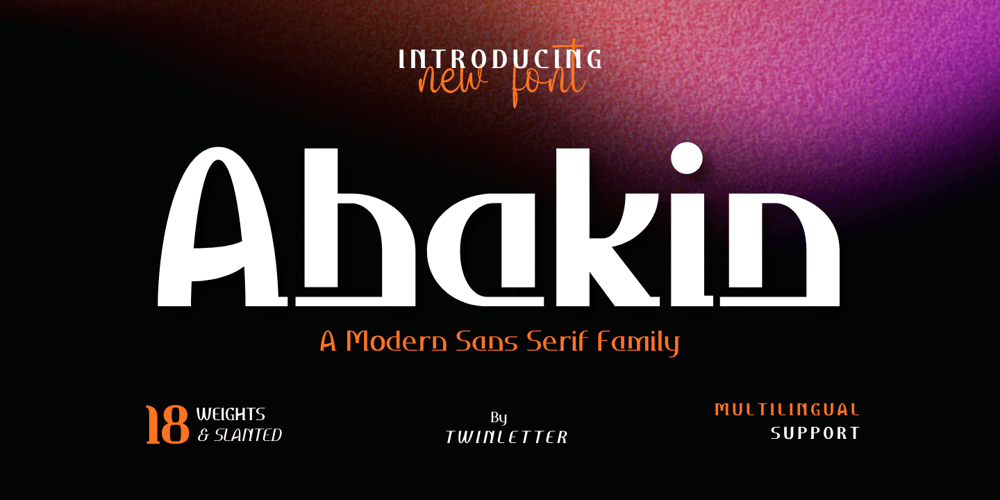
Ahakin Font Family was designed by Rozikan and published by Twinletter. Ahakin contains 18 styles and family package options. We’re excited to share with you our newest typeface family, the Ahakin San Serif. This new set of fonts will give your designs luxury and uniqueness for all kinds of project needs. This pack comes in 18 different styles which makes it perfect for a wide variety of projects. Each style has been uniquely created to maximize beauty and character. This font is specially designed for a variety of display design and branding projects, but will also look great as headlines, text, banners, posters, or anything else.of course, your various design projects will be perfect and extraordinary if you use this font because this font is equipped with a font family, both for titles and subtitles and sentence text, start using our fonts for your extraordinary projects.